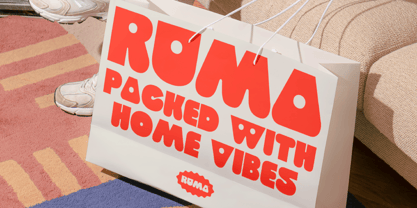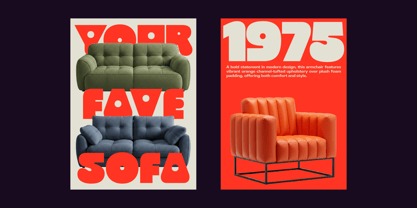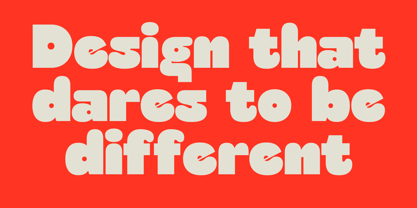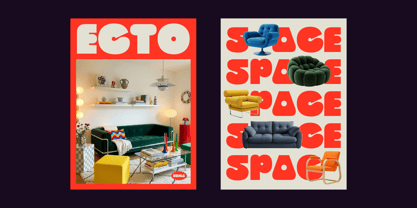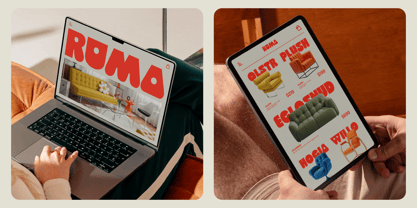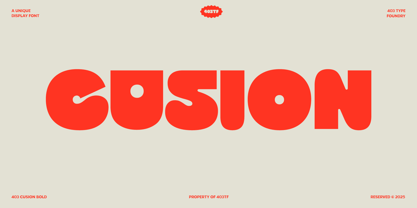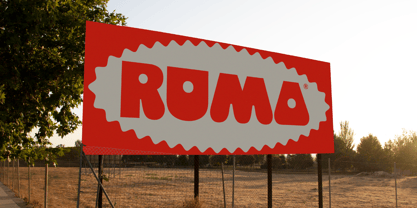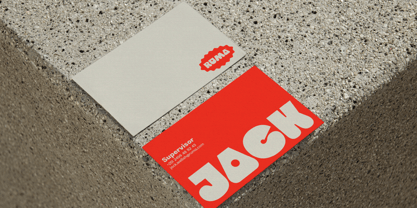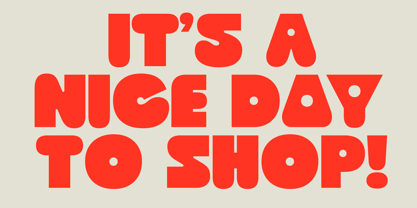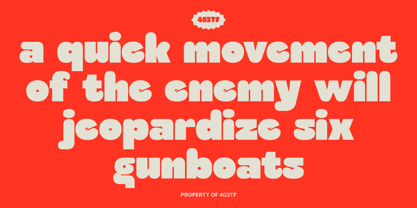
403 Cusion
by 403TF
The 403 Cusion Font Family was designed by Umar Al Farouq, Jodi El Ghazi, Febri Riansah and published by 403TF. 403 Cusion contains 2 styles and family package options. More about this family
Step back in time and straight into the spotlight with 403 Cusion, the display font that packs a powerful vintage punch. Overflowing with 70s inspired personality, Cusion’s thick, groovy letterforms are designed for maximum impact and nostalgic charm. This isn't just a font; it's a statement piece, perfect for brands, creators, and designers looking to craft a bold identity that feels both authentically retro and undeniably current. If your goal is to be seen and remembered, Cusion is your new secret weapon.
Inspired by the plush, rounded forms of vintage sofas and the unapologetic confidence of 70s advertising, 403 Cusion embodies a spirit of playful comfort. We designed each letterform to feel "stuffed" and soft, eliminating harsh lines to create a friendly, approachable, and irresistibly tactile look. This font captures the optimistic and expressive mood of an entire era, delivering a visual tone that is warm, confident, and full of character. Cusion makes typography feel like a comfortable, well loved statement piece.
As demonstrated in its diverse applications, 403 Cusion is an incredibly versatile tool for anyone with a bold vision. It's the ultimate choice for branding professionals crafting identities that need to feel established yet playful. It shines in editorial contexts for high impact headlines and magazine covers. For packaging and merchandise, Cusion creates an instant shelf appeal that feels both nostalgic and fresh. It’s ideal for branding, logo, packaging, apparel, advertising, poster, headline, social media.
Key Features:
• Full A-Z uppercase and lowercase set
• Two styles: Regular and Slanted
• 700+ glyphs with Latin support, accents, symbols, arrows, and math
• Retro futuristic and editorial friendly aesthetic
• Includes numerals, punctuation, and symbols
• Supports up to 270 Latin based languages
• Perfect for branding, posters, album covers, apparel, headline, packaging, social media